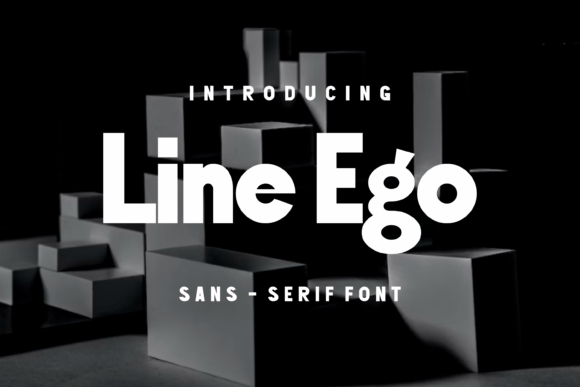
Introducing Line Ego Font - A Vogue Magazine Cover Inspired Sans Serif Masterpiece.
In the realm of captivating typography, there exists a font that exudes boldness, minimalism, and sheer brilliance: the Line Ego Font. This sans serif masterpiece, crafted with precision by lelevien, draws inspiration from the iconic Vogue magazine covers, embodying the essence of sophistication and allure.
Line Ego Font is not just a font; it's an invitation to make a statement, to command attention, and to leave an indelible mark on your audience. Its clean lines, sharp edges, and striking contrast create a visual harmony that elevates your designs to new heights, making them truly unforgettable.
Step into the world of Line Ego Font, where your designs will bask in the spotlight, captivating hearts and inspiring minds. Its versatility knows no bounds, seamlessly adapting to a myriad of creative endeavors.
Visualize your branding projects, name cards, and posters adorned with the Line Ego Font. The result? A symphony of sophistication and style that magnetizes attention and leaves a lasting impression. Let your logos and magazine covers speak volumes, conveying your message with the utmost clarity and impact.
With Line Ego Font, your banners and t-shirts will transform into wearable art, communicating your individuality and captivating onlookers. Transform your website headers into captivating statements that draw visitors in and leave them enthralled. And when it comes to large-scale artwork, Line Ego Font will unleash your creativity, allowing you to paint your dreams onto the canvas of the world.
As you journey through the creative landscape with Line Ego Font as your compass, you'll discover a world of possibilities. Its allure will empower you to craft designs that inspire, engage, and ignite the imagination.
Welcome to the realm of Line Ego Font, where typography takes center stage, captivating audiences and leaving a legacy of timeless elegance. Embrace its power and watch your creative visions soar to unprecedented heights.